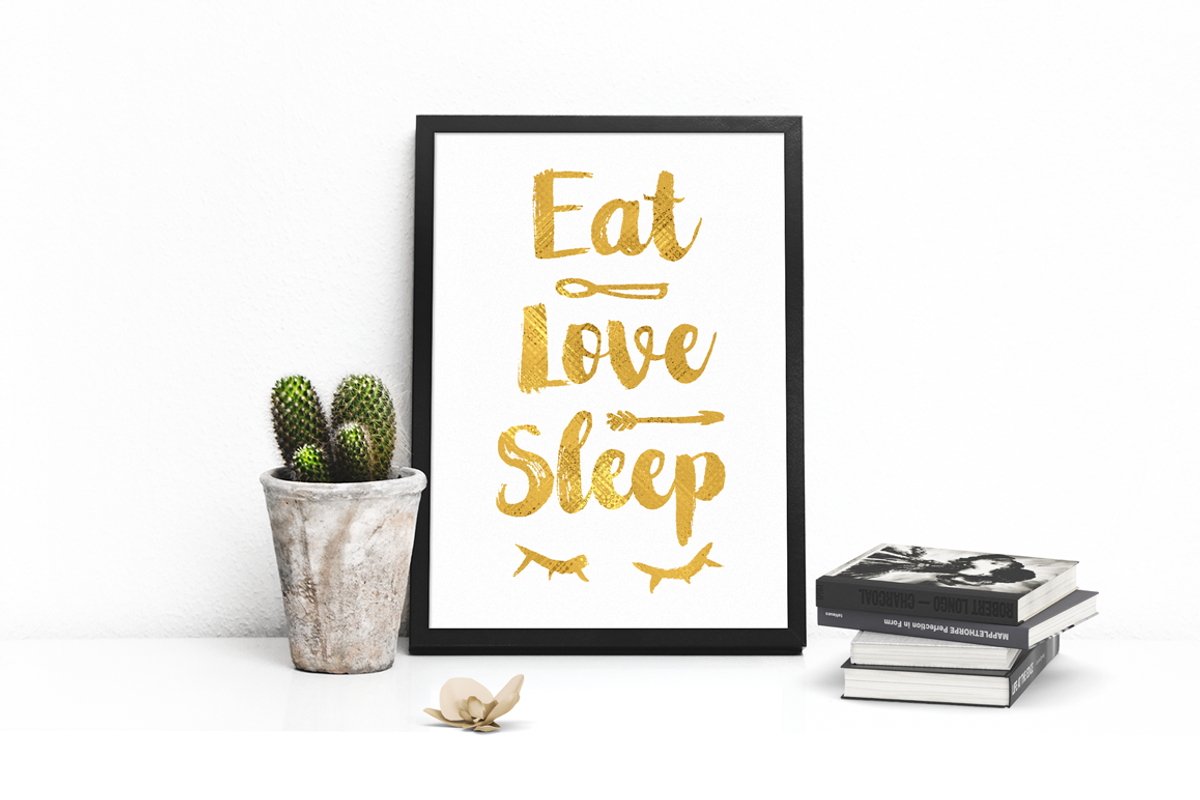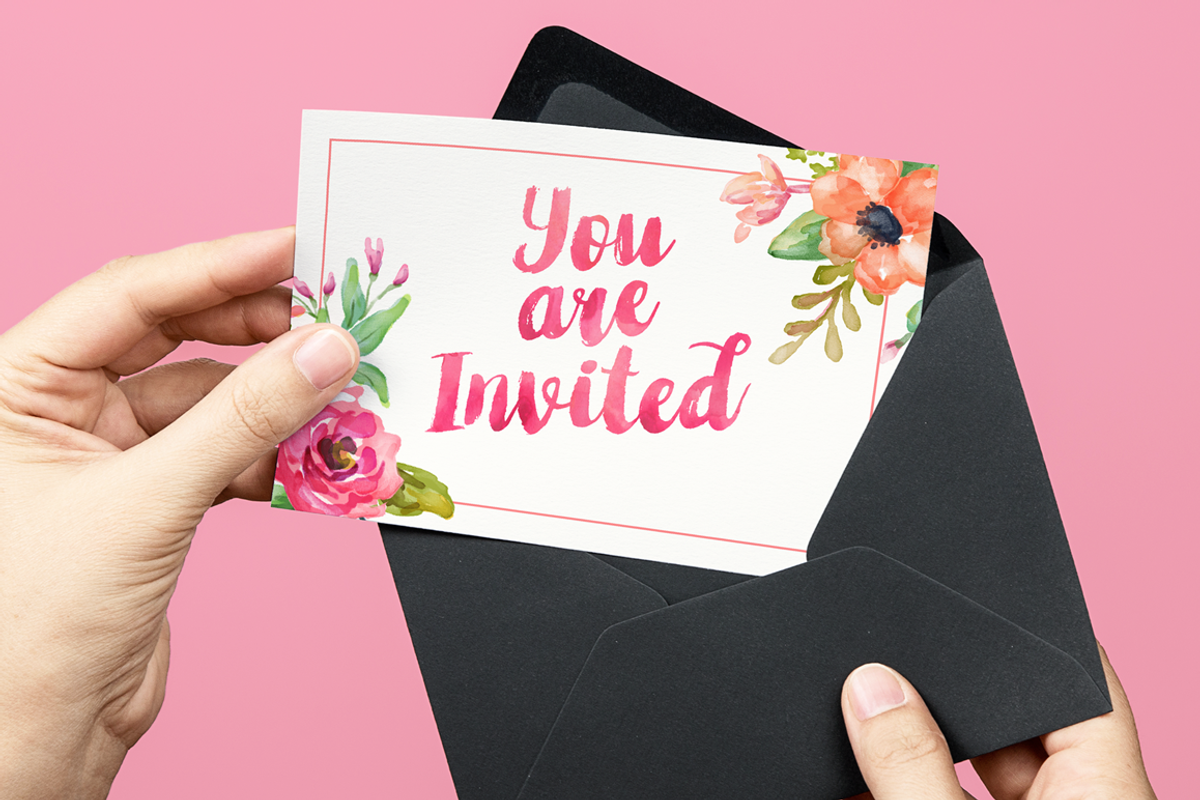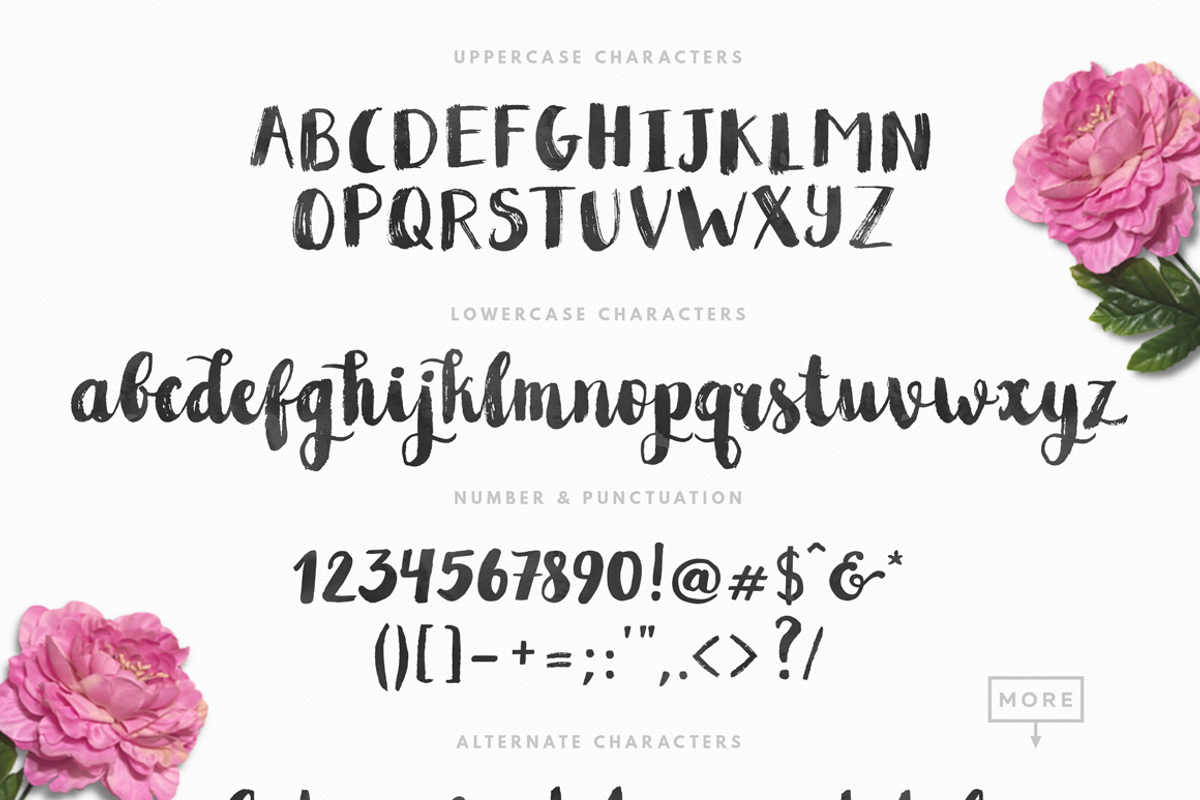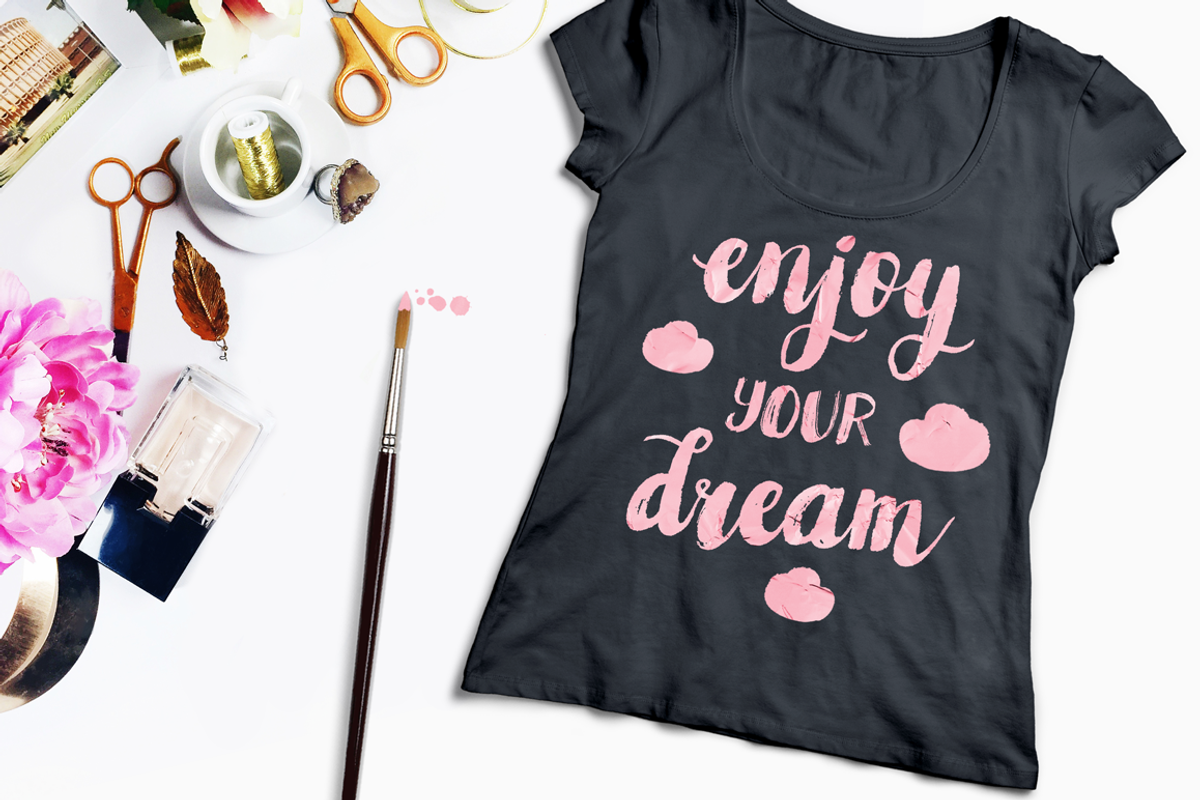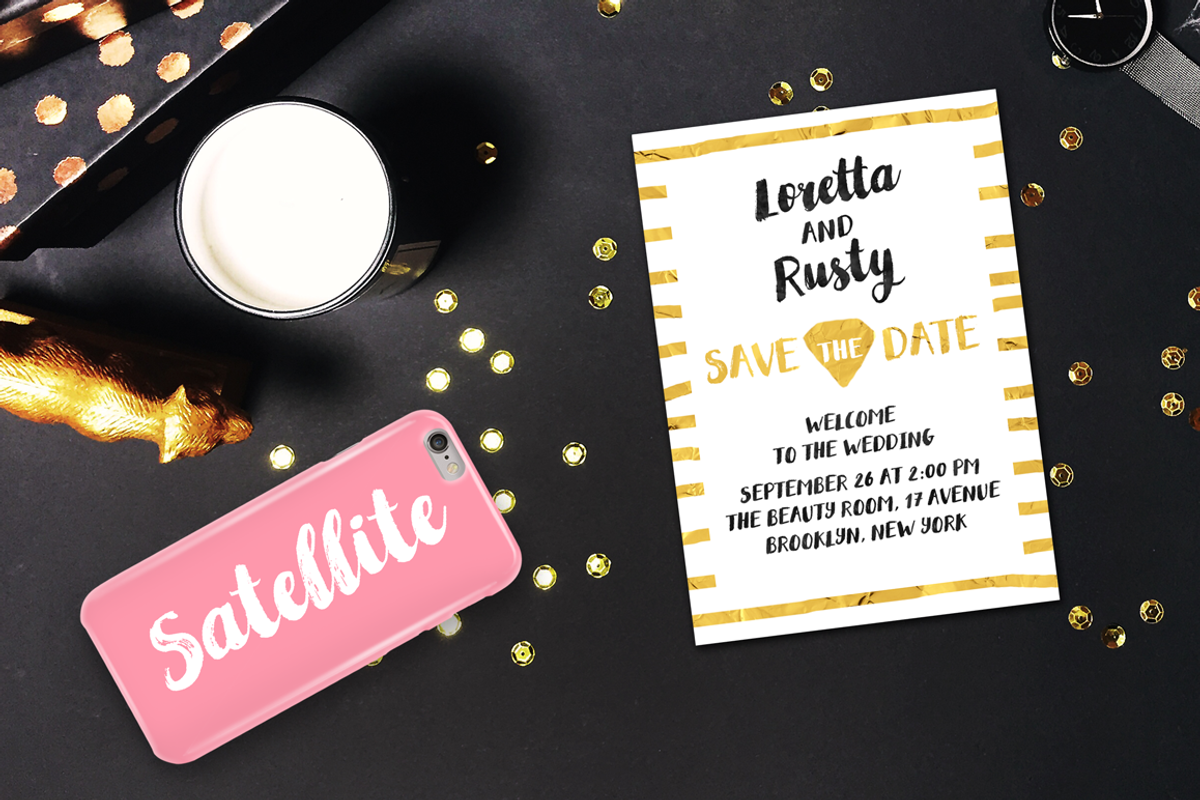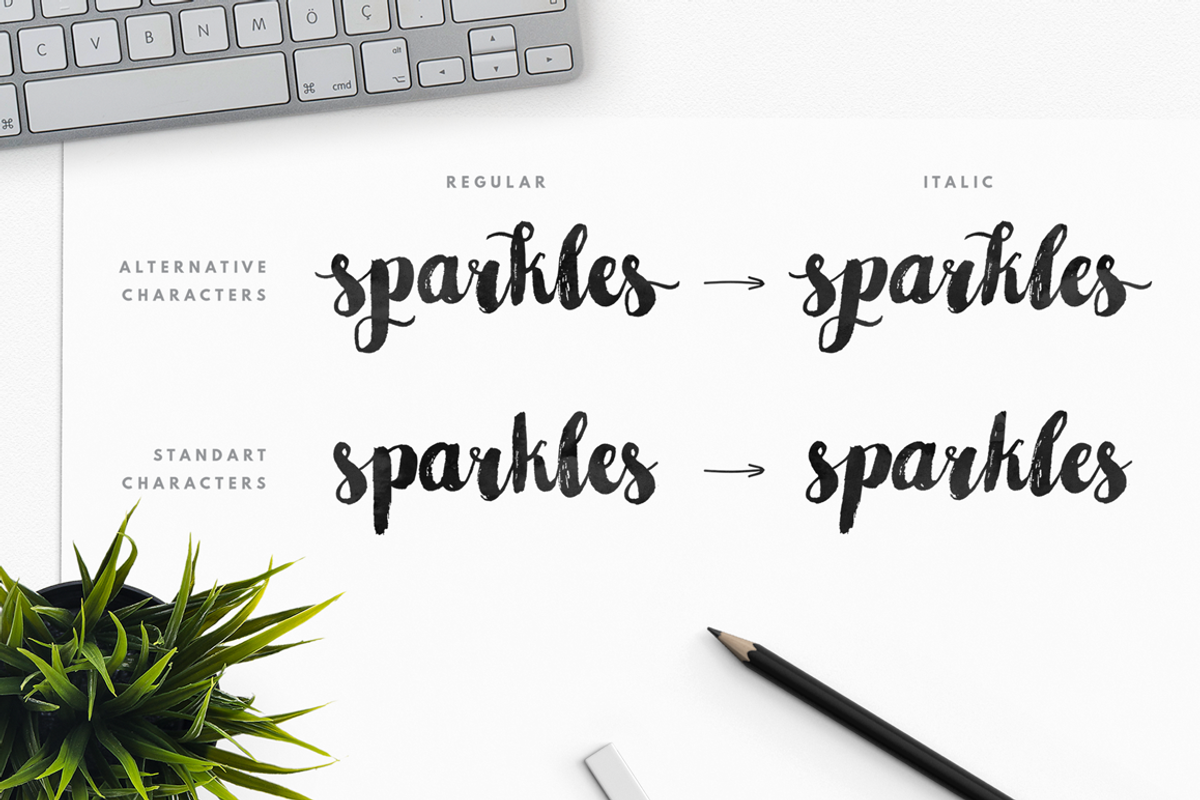
Sparkles Font + Big Bonus
Sparkles Font + Big Bonus by Ayya Studio is a font selected for branding, posters, packaging, typography.
- Sparkles typeface (Regular+ Italic) comes with upper and lowercase characters, large set of punctuation glyphs and numerals.
Why Sparkles Font + Big Bonus is worth a look
Sparkles Font + Big Bonus by Ayya Studio fits naturally into Branding, posters, packaging, typography.